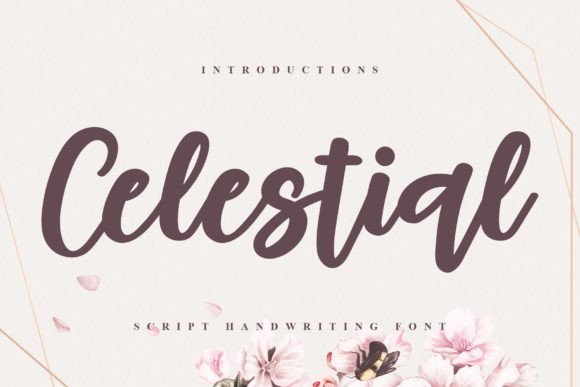
Unlocking the Magic of Your Creativity with Celestial Font
You’ve spent hours brainstorming, sketching, and refining your idea. The excitement builds as you finally see your concept take shape. But, something’s missing. A dash of personality, a pinch of whimsy, and a whole lot of flair are the secret ingredients that can elevate your project from good to great. That’s where the Celestial Font comes in – a masterfully designed, playful handwritten font that’s sure to add that special touch to any project you can think of.
As a designer, you know the value of having the right tools at your disposal. Celestial Font is more than just a font – it’s a creative catalyst that can bring your ideas to life in a way that’s uniquely yours. With its versatility and charm, this font has the potential to become a true favorite among designers and creatives alike.
Celestial Font Key Features
- Unique Characteristics: Celestial Font features a unique blend of modern and celestial elements, with intricate details and subtle texture, creating a captivating and otherworldly aesthetic.
- Kerning and Ligatures: Celestial Font includes advanced kerning and ligature tables, ensuring precise spacing and connection between letters, resulting in a polished and professional appearance.
Celestial Font Review
Overall, I was excited to dive into the Celestial Font, but my experience was a mix of highs and lows. Here’s a breakdown of what works well and what doesn’t:
- Elegant and sophisticated feel: The Celestial Font exudes an otherworldly elegance that’s perfect for luxury brands or high-end projects.
- Wide range of weights and styles: With multiple weights and styles available, designers have plenty of options to create visually appealing typography.
- Smooth and polished: The font’s curves and lines are expertly crafted, resulting in a smooth and polished look.
- Not ideal for body text: While the Celestial Font is stunning in headlines and titles, it’s not the best choice for body text due to its relatively small x-height and narrow letterforms.
- Requires careful kerning: To achieve optimal results, designers need to carefully adjust the kerning between letters, which can be time-consuming.
While the Celestial Font is a stunning addition to any designer’s toolkit, its limitations make it better suited for specific projects rather than everyday use. If you’re working on a high-end brand or project that demands elegance and sophistication, the Celestial Font is definitely worth considering. However, for general body text or projects that require a more versatile font, you may want to explore other options.
Tips for Getting the Most Out of Celestial Font
Use Celestial Font for titles, headings, and other text elements where you want to add a touch of elegance and sophistication.
Experiment with different font sizes and styles to create a visually appealing design.
Combine Celestial Font with other fonts to create a unique and eye-catching design.
Celestial Font is perfect for:
Business cards and brochures
Magazine and book covers
Event marketing materials